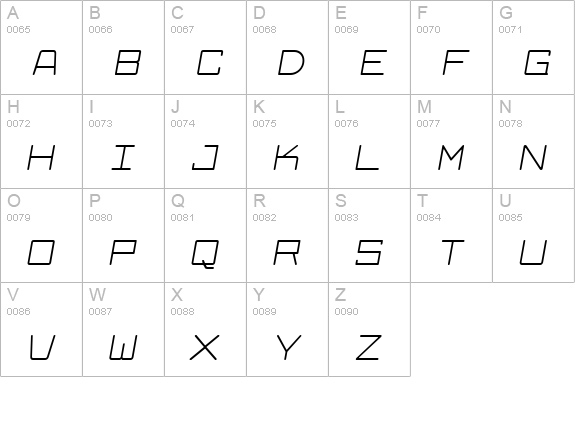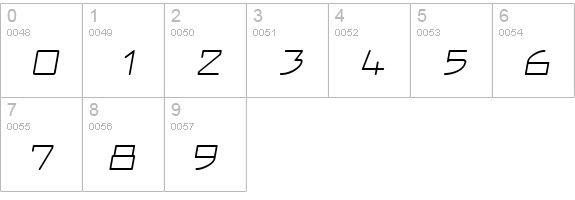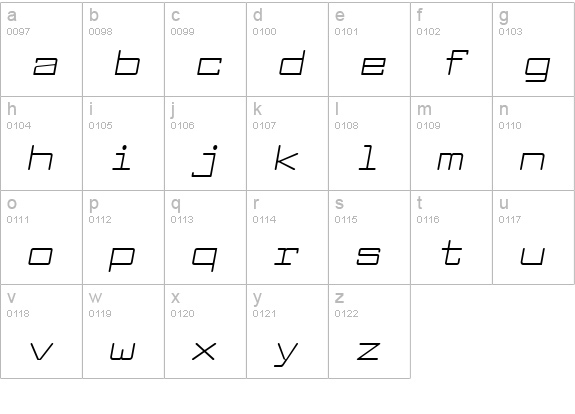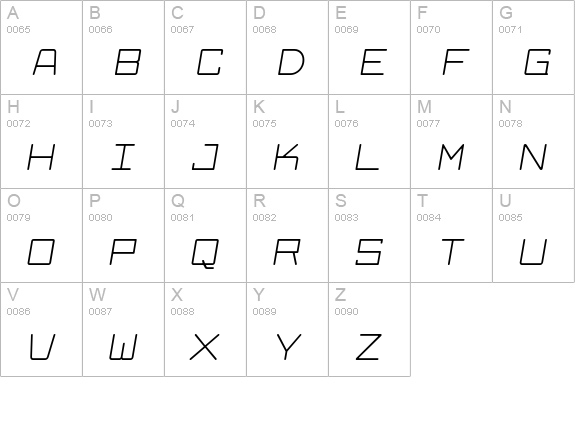
Larabiefont Extended Italic is a distinctive, extended-width, italic variant in the Larabiefont typeface family \xE2\x80\x94 well suited to design and typography projects.
Larabiefont Extended Italic is a stylish and elegant font that exudes sophistication and modernity. Its sleek and slanted design adds a touch of flair to any project, making it perfect for use in branding, advertising, and creative designs. The italicized form of the font adds a sense of dynamism and movement, making text appear more fluid and engaging. What's even better is that Larabiefont Extended Italic is available for free download at FontsMarket.com. This means that you can access this high-quality font without any cost, making it a valuable resource for designers, students, and anyone looking to elevate their projects with a touch of sophistication. Don't miss out on this fantastic opportunity to enhance your designs with Larabiefont Extended Italic - download it for free today!